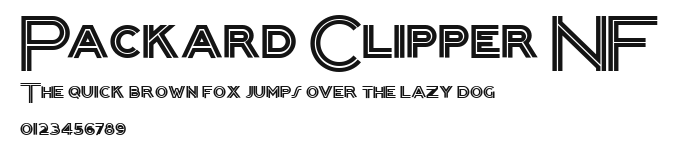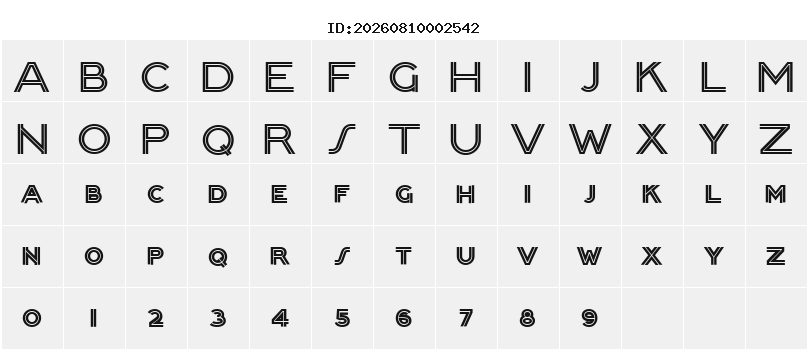
• Font Name: Packard Clipper NF
• Designer: Nick Curtis
• Manufacturer: Nick's Fonts
About Packard Clipper NF.ttf
Packard Clipper NF.ttf is a modern, elegant sans-serif font designed for ultimate readability and visual harmony. Perfect for branding, headlines, web design, and print materials.